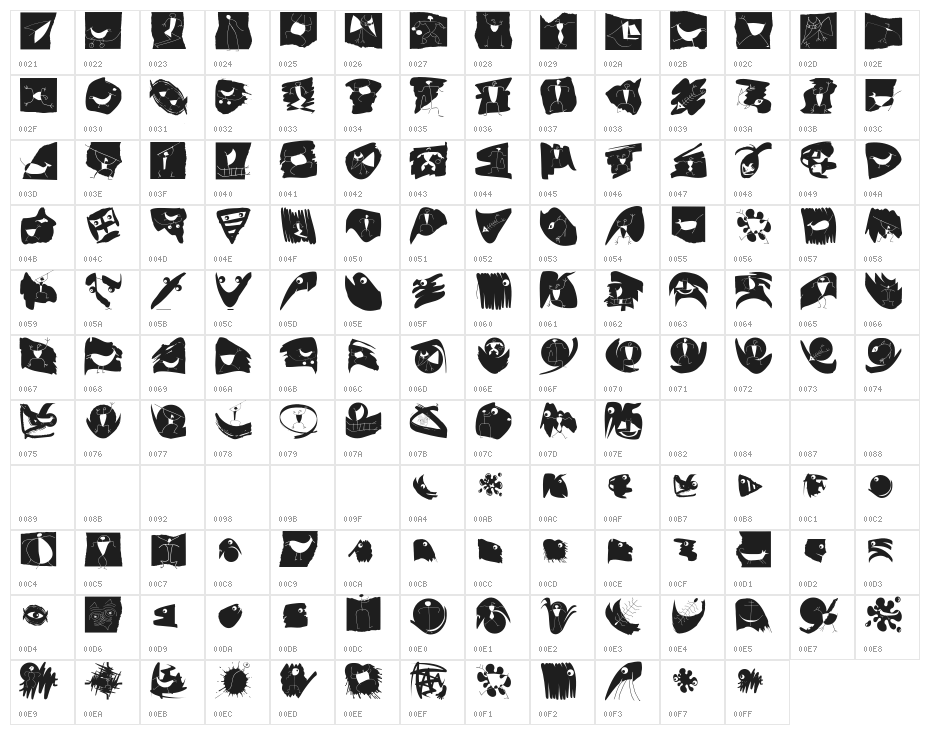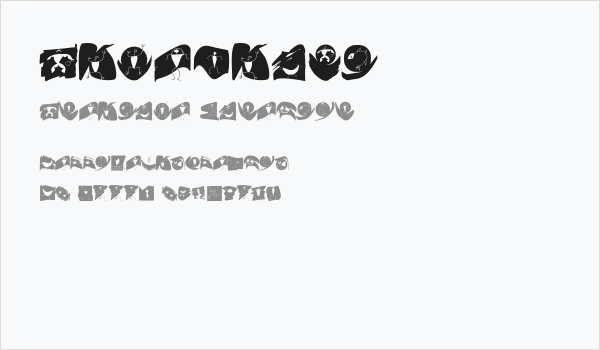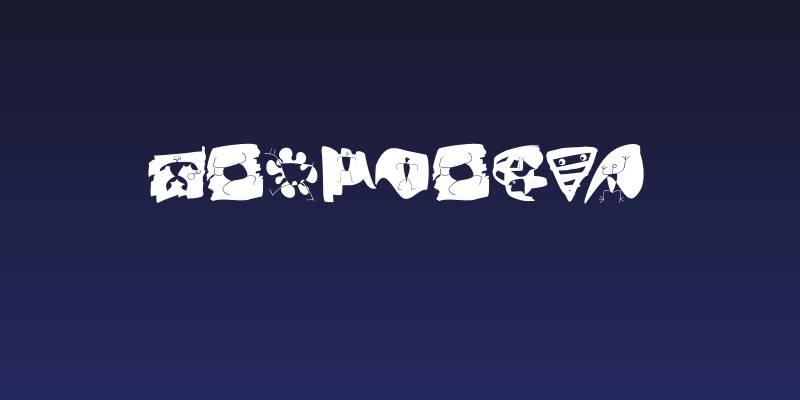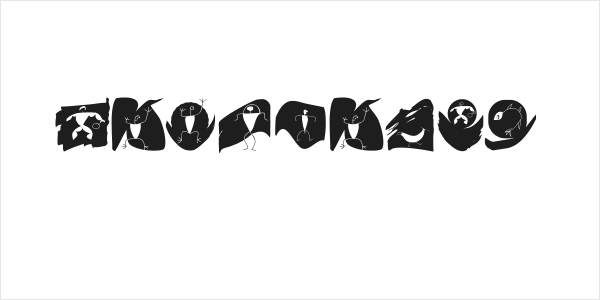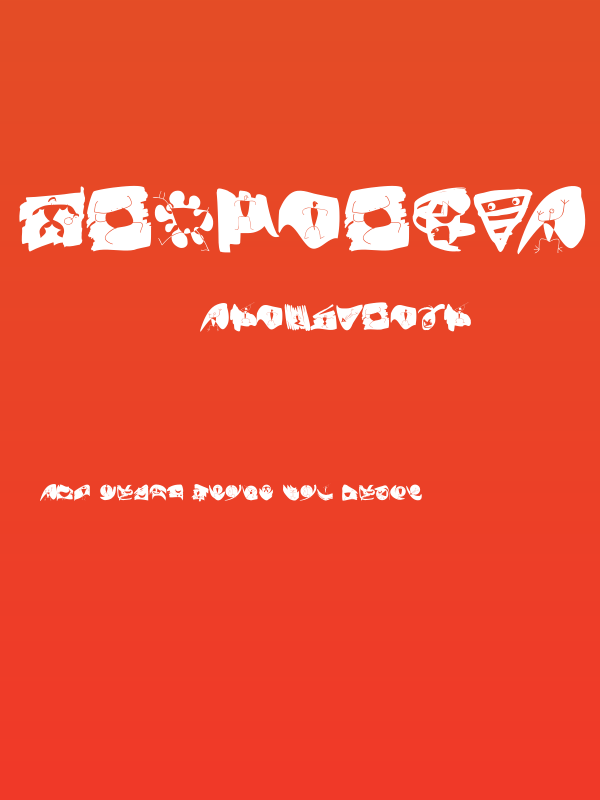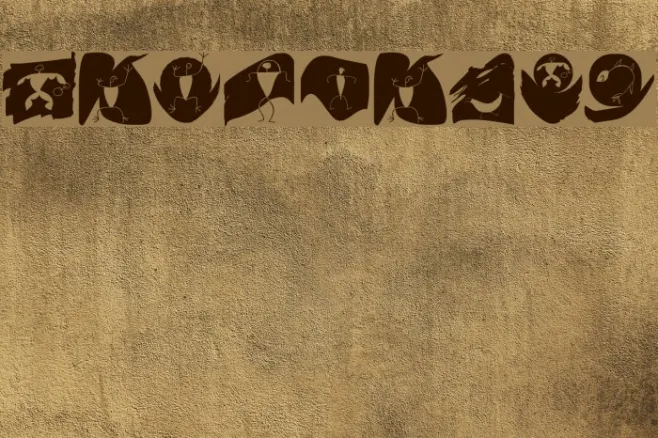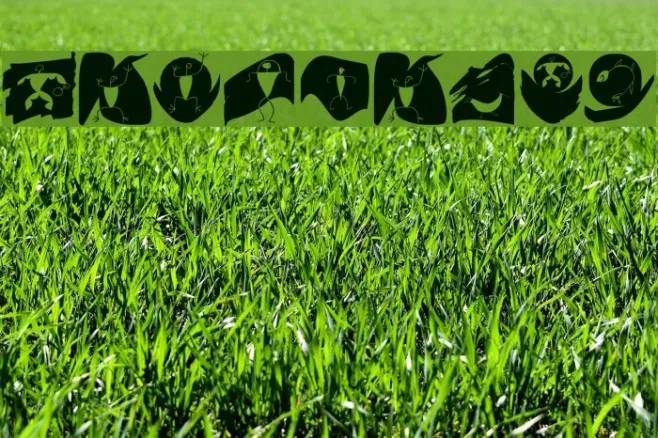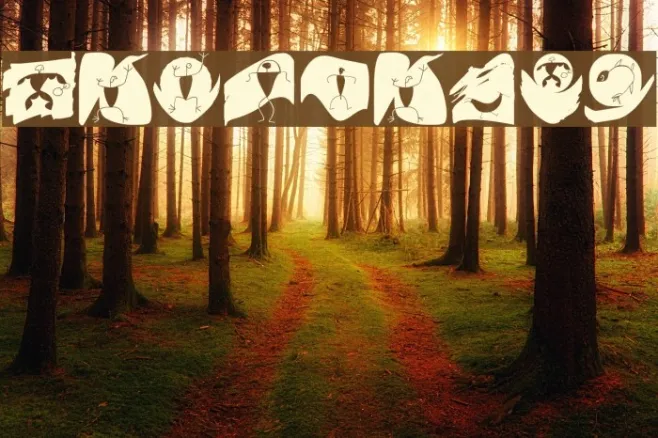
CavePaint Font
CavePaint Description
This font is a highly decorative and artistic typeface that draws inspiration from ancient cave paintings. Each character is uniquely designed with intricate details and abstract shapes, resembling primitive art forms. The letters are bold and filled with solid black, creating a striking contrast against any background. The font features a playful and whimsical style, with each character incorporating elements like animals, figures, and symbols reminiscent of prehistoric art. This typeface is not meant for readability in large blocks of text but rather for creative and expressive design projects where visual impact is key.
| Use Case | Logos, Posters, Artistic Designs |
| Proposed Projects | Ideal for art projects, posters, album covers, and any design work that requires a unique and expressive typeface. |